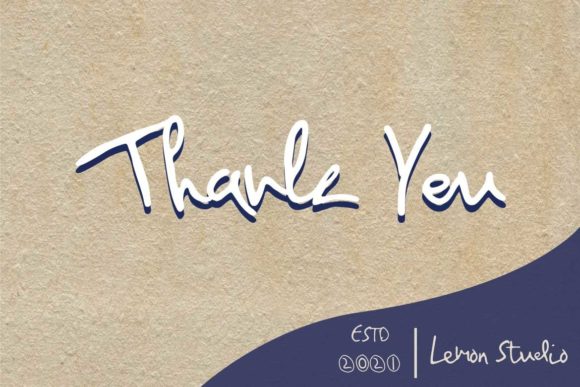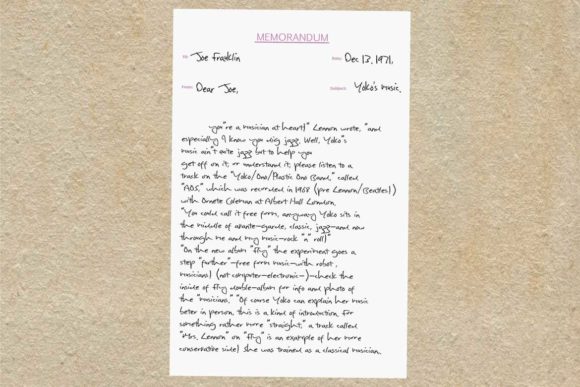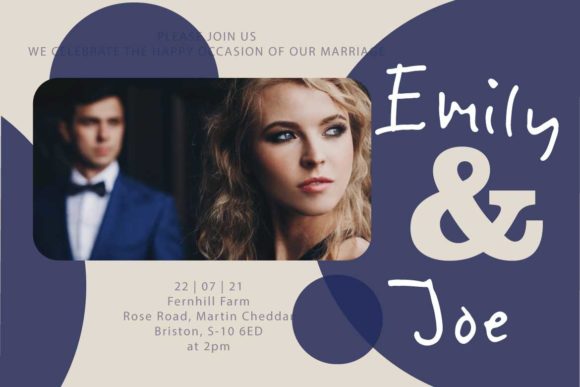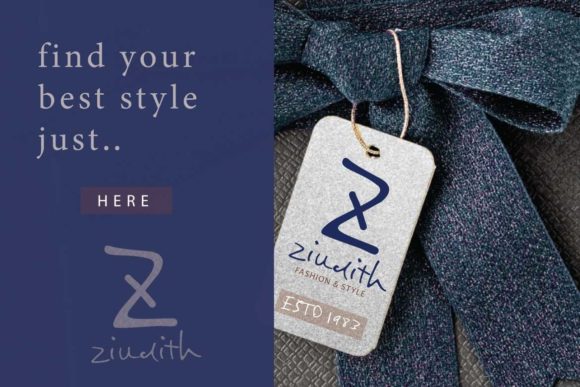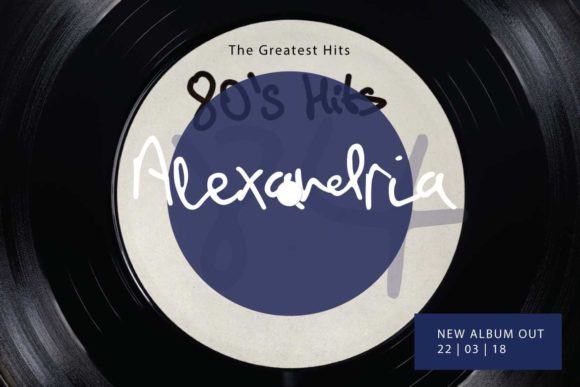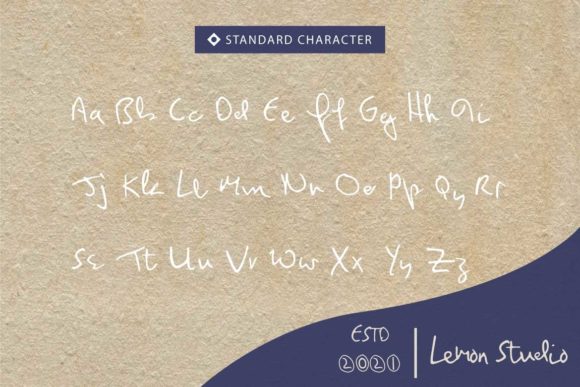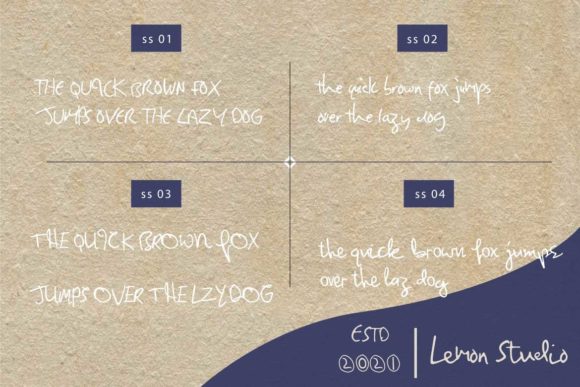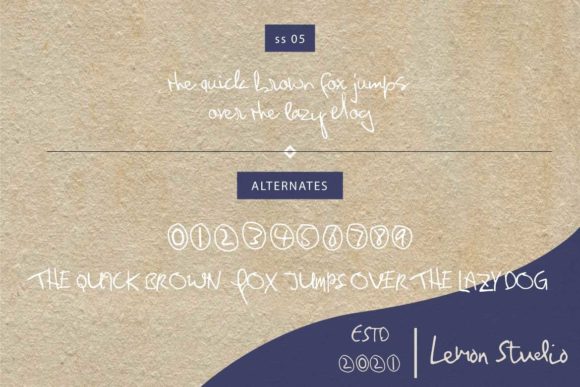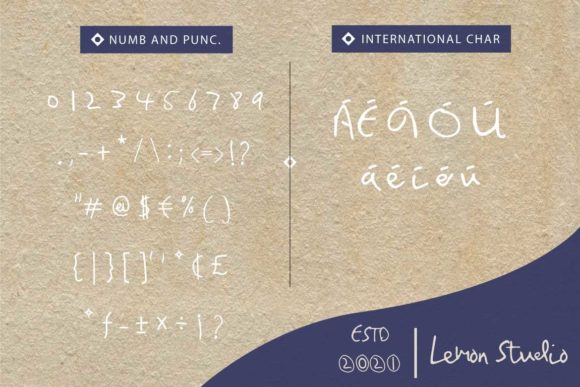
Bryan Adam Font
About Bryan Adam Font
Bryan Adam is a lovely and delicate script font that exudes elegance and class. This font was particularly crafted for those who need a beautiful and refreshing look to their designs.